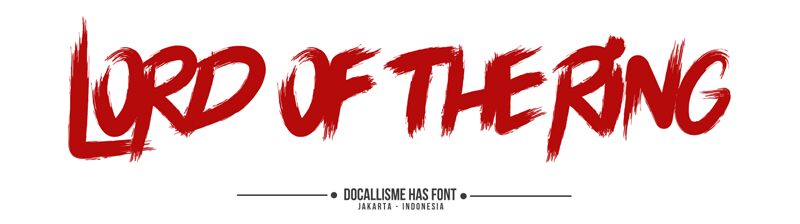
LORD OF THE RING
The "Lord of the Ring" font, designed by The Docallisme - Amry Al Mursalaat, exudes a captivating and mystical essence. This brushstroke-influenced typeface boasts a striking, organic aesthetic that evokes a sense of ancient, otherworldly charm. The intricate, flowing letterforms and the expressive, dynamic lines create a visually compelling and immersive typographic experience.
This font's versatility lends itself well to a variety of design applications, from fantasy-themed branding and editorial layouts to cinematic title sequences and atmospheric packaging designs. Its unique character and strong visual identity make it an excellent choice for projects that seek to convey a sense of adventure, enchantment, or a connection to the natural world.